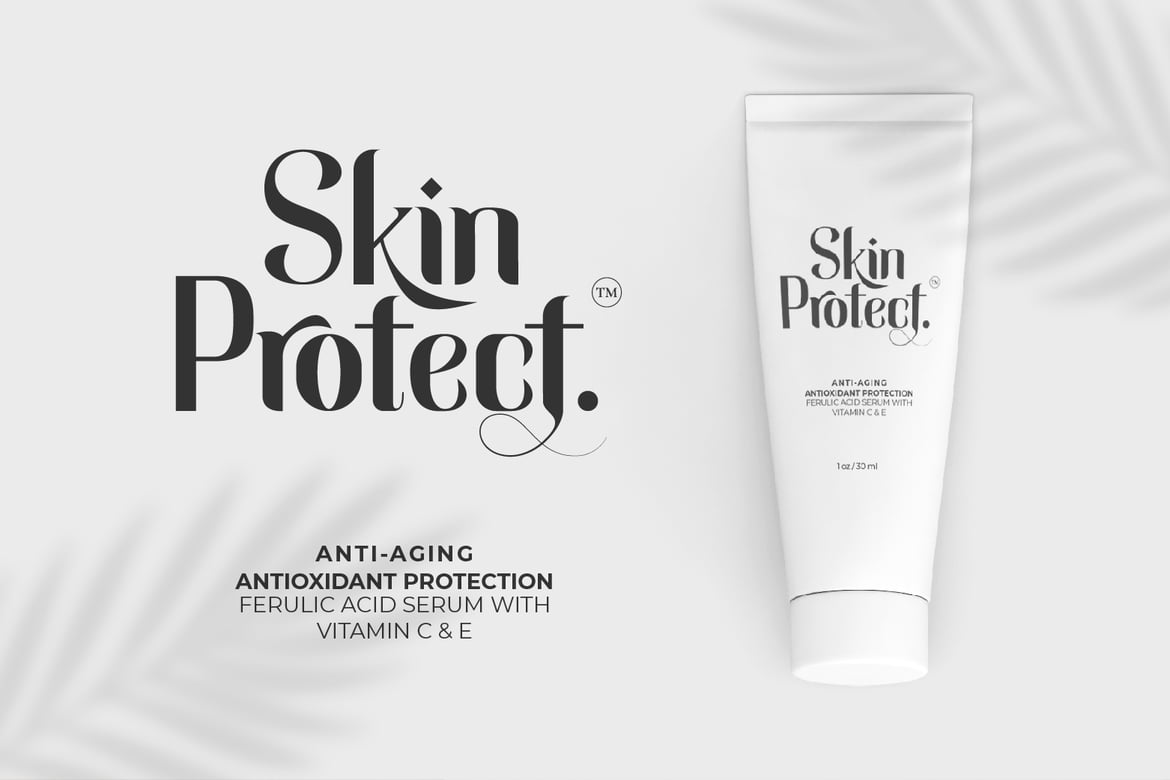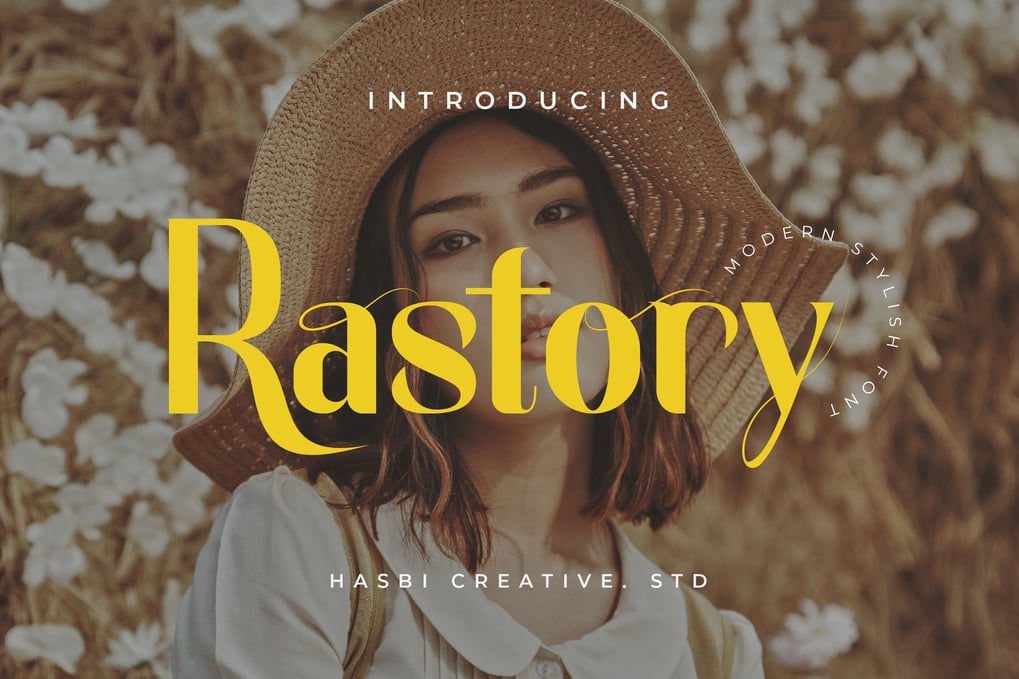
Rastory Stylish Font is a versatile font that can be used for a variety of purposes, including:
* Logos and branding
* Headlines and titles
* Marketing materials
* Wedding invitations and stationery
* Product packaging
* Social media graphics